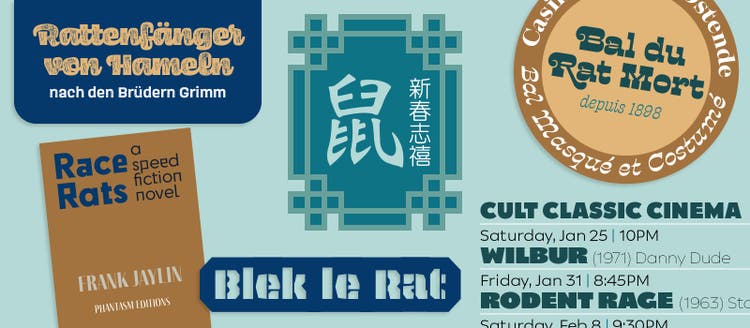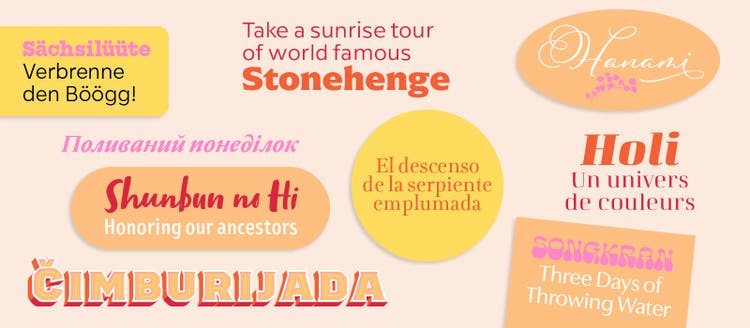
Summer is over, and everybody’s gearing up to end the year on a high note. What better way than with a fresh typographic look, thanks to over 200 new fonts from our foundry partners. We’ve also added new website features that allow foundries to showcase their typefaces while elevating their brand presence.
Foundry partners, now in full detail
Adobe is proud to work with the world’s premier type foundries to give you access to a diverse collection of fonts. There are now more ways than ever for users to connect to our foundry partners and learn more about the people behind the fonts.
For starters, feast your eyes on typographic eye candy created by the foundries themselves. Images throughout the Adobe Fonts site show the versatility of the fonts and may even impart inspiration for your creative use cases.
Font diner cooks up tasty handwritten fonts
After learning about our site updates are you in the mood for a tasty type snack? Let Font Diner’s delicious fonts satiate your typographic hunger.
When Stuart Sandler launched his independent type foundry in 1996, it soon gained a solid reputation as a source for retro fonts inspired by 1950s popular culture. Font Diner’s first course served on Adobe Fonts is a buffet of scripts and handwritten fonts in a variety of styles. From casual to formal, the Pro versions of these fonts have been expanded and enhanced with additional characters and dynamic OpenType features to bring a genuine handwritten appearance to print and screen.
If you wish to capture the sensation of writing with a felt tip marker without ruining your computer screen, Permanent Marker Pro is almost like the real thing—you’ll only miss the smell. Use it to communicate in a casual yet powerful voice.
Rock Salt Pro was hand-crafted with a fine felt-tip marker for a zippy hand-lettered look. It provides the perfect digital solution for the energetic, analog feel of a quickly scribbled note.
Are you more of a ballpoint pen kind of person? Homemade Apple Pro mimics its typical texture in a warm, beautifully written cursive script. Capture the cozy friendliness of a note from your grandma or favorite aunty.
Written by the finest lettering artist in the 2nd Grade, Schoolbell Pro is a delightfully playful hand-printed schoolscript that dances on the baseline. It looks disarming and sweet in a relaxed context.
Seaweed Script Pro is a rustic tropical beachside script with slightly irregular outlines, fitting when you want a formal script that isn’t too formal. The typeface feels equally at home on packaging with a retro feel as on invitations and postcards.
Inspired by calligraphic forms from the Victorian and Art Deco time periods, the dapper Rochester Pro is dressed to the nines and ready for action. The elegant sign painter script is a commercial Jack of all trades, fit for everything from vintage-looking advertising and packaging to awnings and store windows.
Briefcase type carries five new type families to Adobe Fonts
A logical extension of Suitcase Type Foundry, Briefcase Type offers Czech type designers an option for publishing and marketing their own fonts without setting up a type foundry. After they dipped a toe in Adobe Fonts’ welcoming waters with the inventive geometric display sans BC Alphapipe, Briefcase Type adds five new families to the mix.
Everybody needs a reliable, all-purpose sans serif. Originally commissioned by Czech commercial television station Nova in 2007, the versatile BC Novatica fits in the category “neutral sans”.
Don’t let its deceptively clean appearance fool you. Several design details like the simplified a, j, m, n, and t, and the italics’ pronounced slant distinguish Novatica from other fonts in a similar style. With five weights with matching italics and a large character set that supports Latin Extended and Cyrillic, BC Novatica is engineered for corporate communication, branding, editorial, and—of course—broadcast and online content.
Not every sans serif needs to be all-purpose, however; sometimes you need a not-so-neutral font family to make a bold statement. BC Liguria shows that there is room for radical innovation in the sans serif genre without impeding on the usability of the typeface.
Designer Jan Novák disassembled the letterforms into individual character parts and recombined them in novel and resourceful ways, creating an exciting design by embracing the principles of fragmentation and shift. The absence of fine details helps BC Liguria stay surprisingly readable in small sizes. Use it to design eye-catching posters and covers, art and architecture magazines, and anything that needs to steer away from the norm.